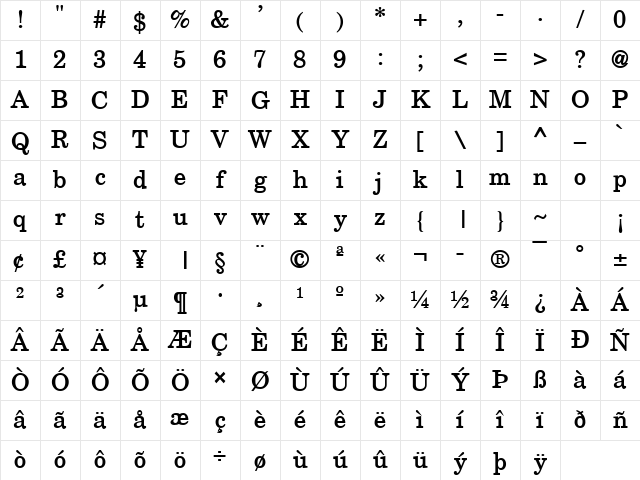
New Boston is a composed and adaptable typeface that performs quietly and consistently across a wide range of design contexts. Its bold stroke weight gives it real presence on the page.